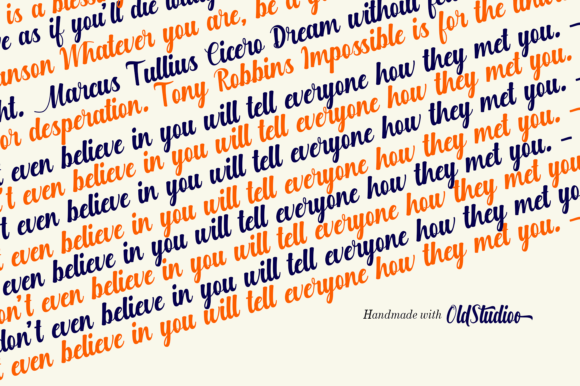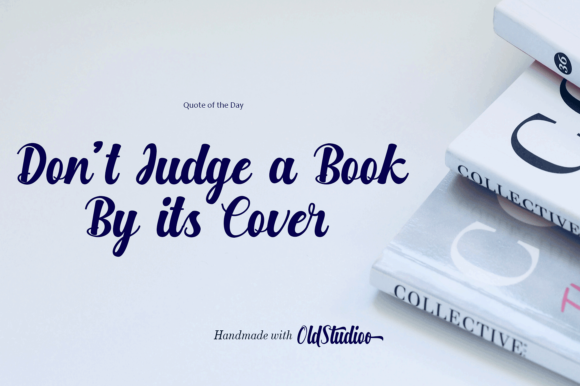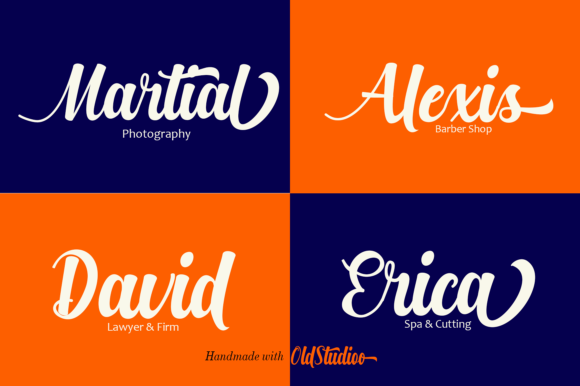
Introduction to Hurringtown Script Font
Have you ever stared at a blank page, waiting for inspiration to strike? That’s where I was when I discovered the Hurringtown Script Font. Its bold, playful charm instantly captured my attention, and I knew I had to learn more. This font is more than just a design element – it’s a key to unlocking the perfect aesthetic for any creative project.
As a designer, you’re constantly on the lookout for high-quality resources to elevate your work. The Hurringtown Script Font is a game-changer, offering a unique and authentic handwritten style that’s perfect for adding a touch of personality to your designs. Whether you’re working on a free download or a paid project, this font is sure to make a lasting impression.
Key Features of Hurringtown Script Font
- High-quality, elegant script font ideal for creative projects and design resources.
- Transparent background, making it easy to use on any background or design element.
- Font size: 200-400 characters per font set, with 12-15 different font styles to choose from.
- Resolution: 300 DPI, ensuring crisp and clear text output.
- Unique, handwritten style with subtle imperfections, adding a touch of personality to any design project.
Honest Review: Hurringtown Script Font
I recently had the chance to work with the Hurringtown Script Font and I must say, it’s a great addition to any designer’s toolkit. This high quality font is perfect for creating a unique and creative visual identity for your design project.
One of the things that stands out about the Hurringtown Script Font is its transparent background, which makes it incredibly versatile. You can use it on its own or pair it with other fonts for a truly unique look.
Here are some of the things that work well with this font:
- ✨ Unique and creative design possibilities
- ✨ High quality, smooth lines and curves
- ⚠️ Limited character set, may not be suitable for longer texts
- ⚠️ May not work well in small sizes, may appear pixelated
Overall, I’m really impressed with the Hurringtown Script Font. It’s a great design resource that can add a touch of creativity to any project. Whether you’re working on a personal or commercial project, this font is definitely worth checking out.
The Hurringtown Script Font is perfect for use in a variety of creative projects, including wedding invitations, birthday cards, and social media graphics. Its high quality and transparent background make it ideal for use in layered designs, while its free download makes it a valuable design resource for any project.